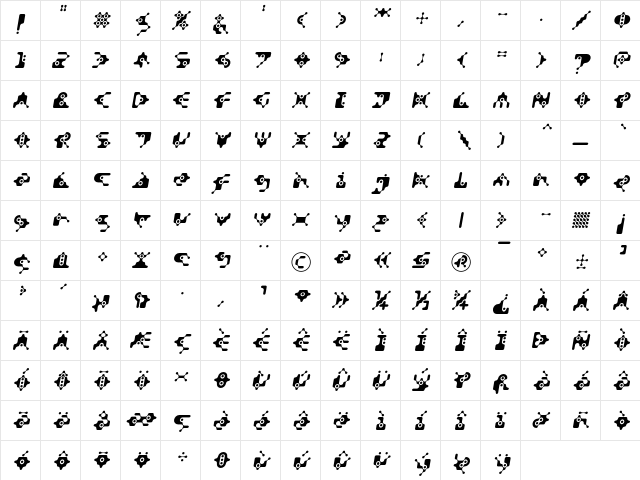
DigitalWaste Oblique
Design Context for DigitalWaste Typeface
DigitalWaste channels digital-age aesthetics through its sharp, structured letterforms — ideal for brands that want to signal innovation. The slanted form adds forward momentum and visual energy.